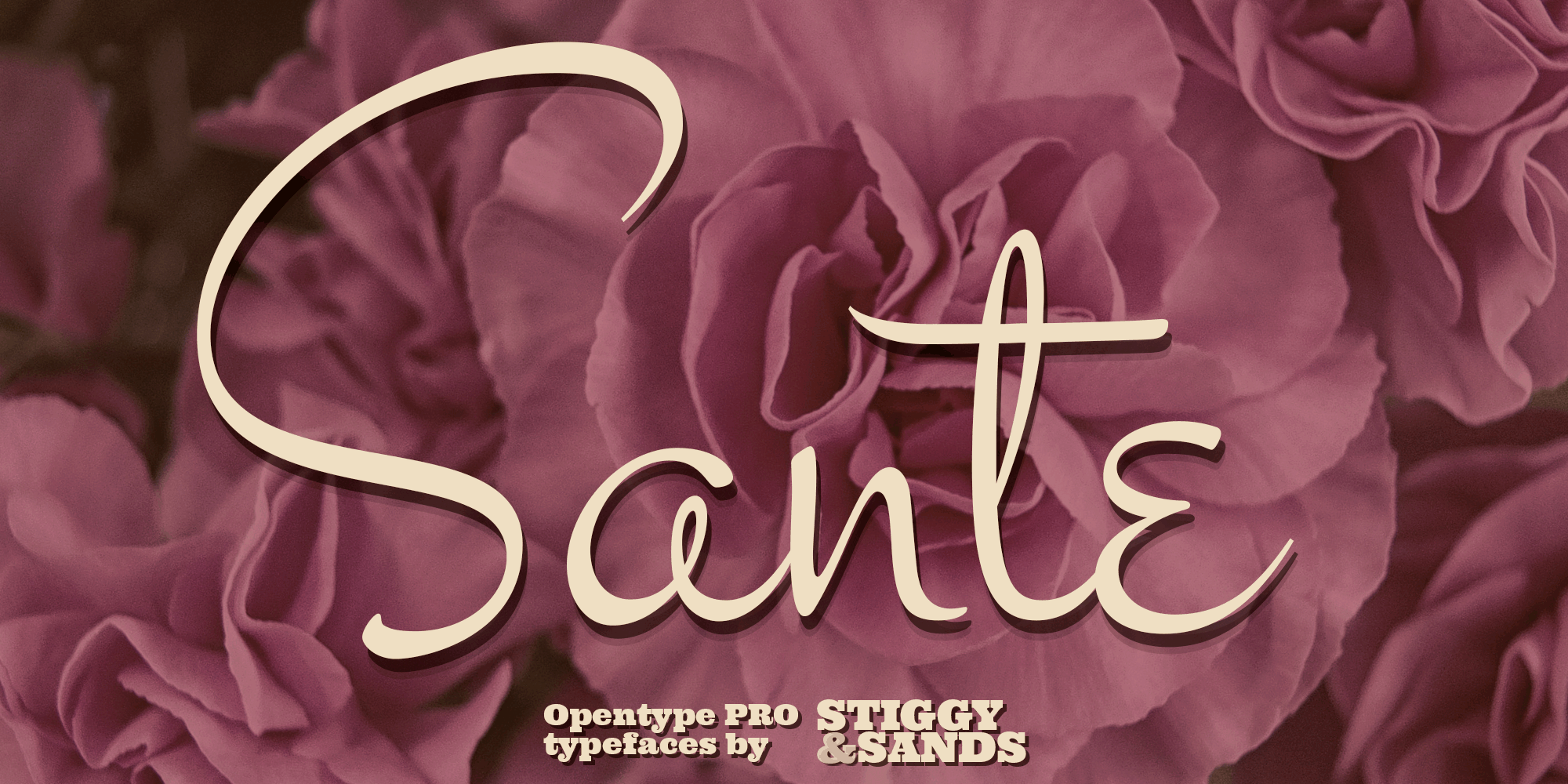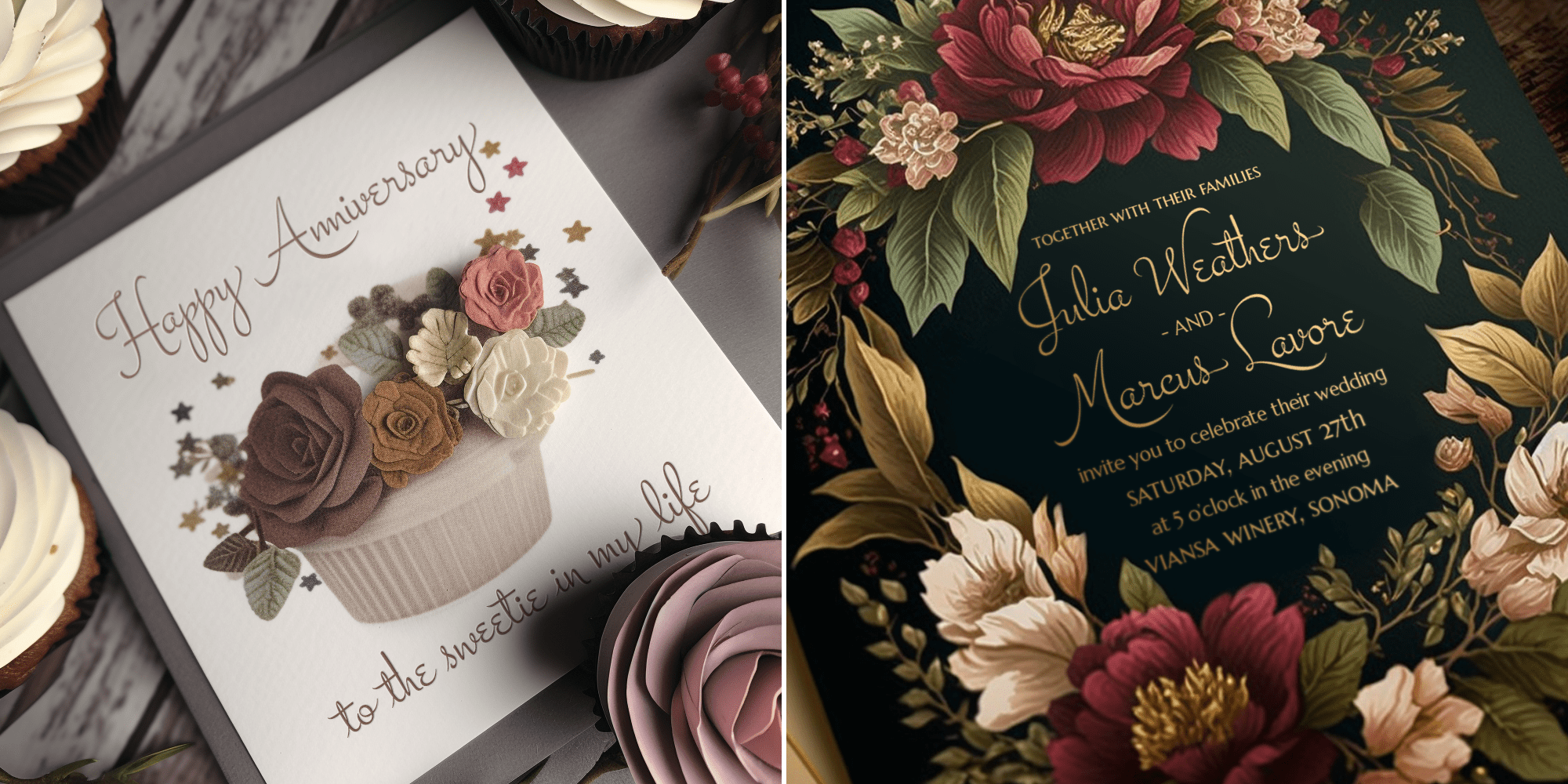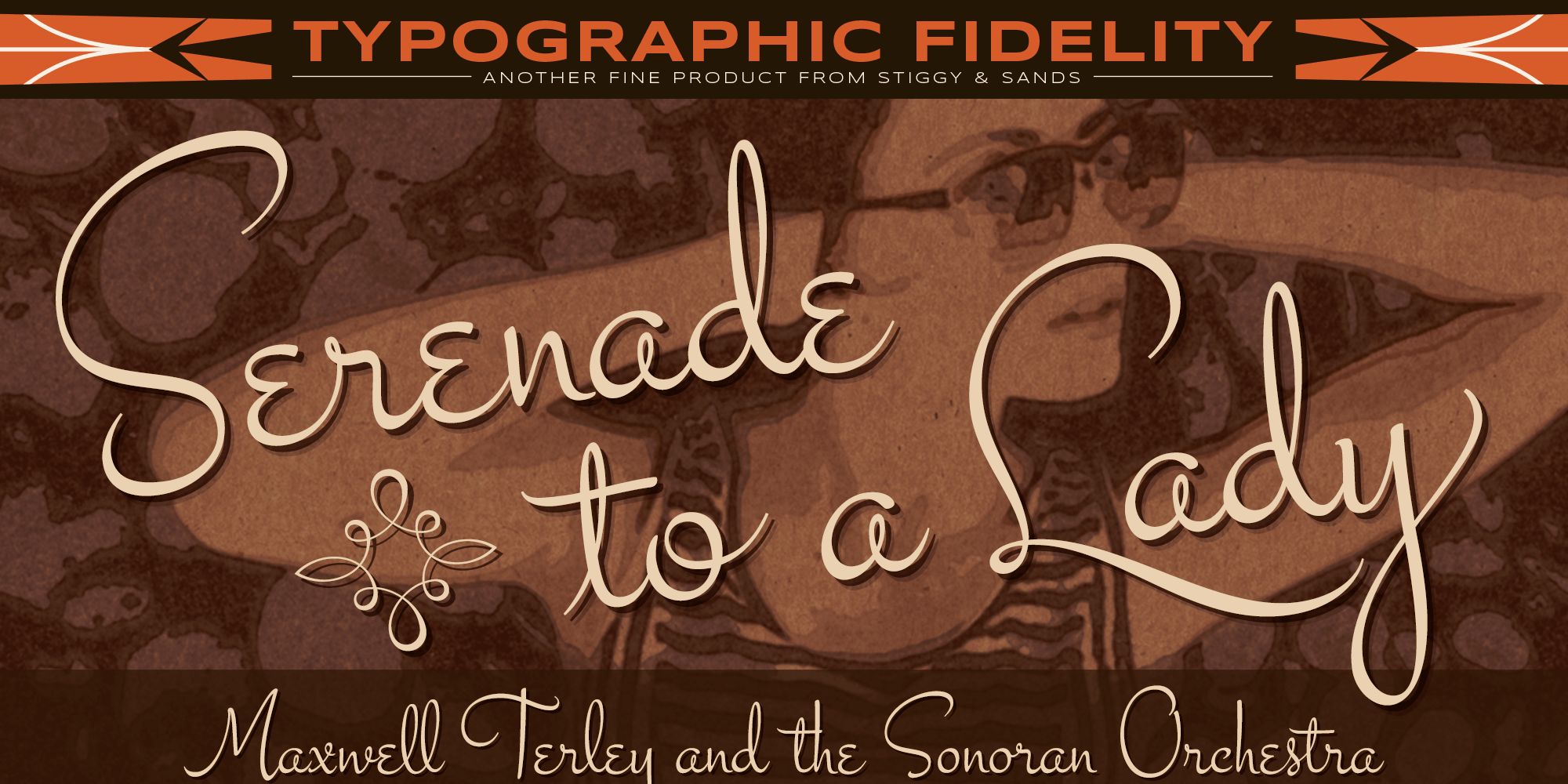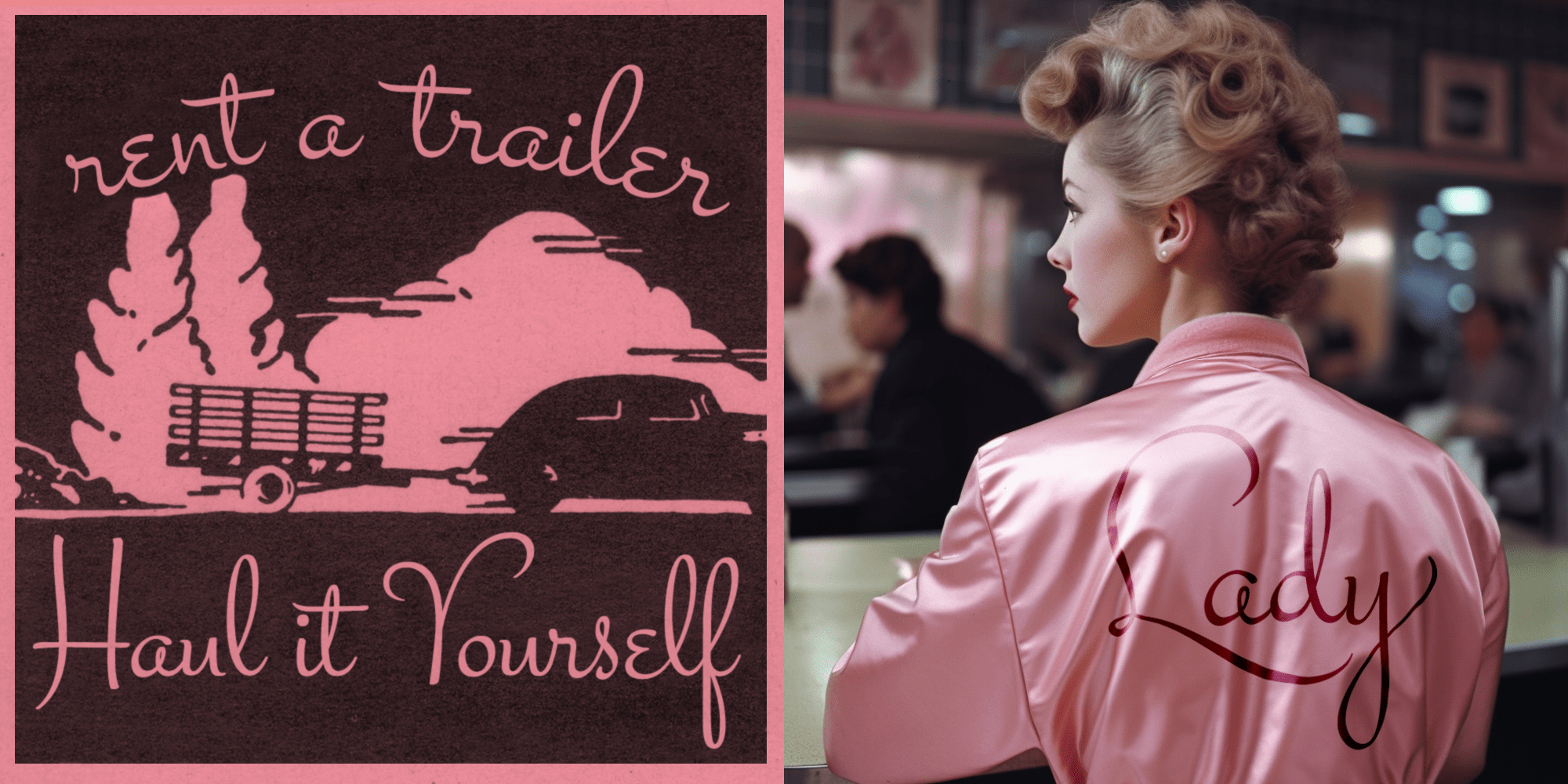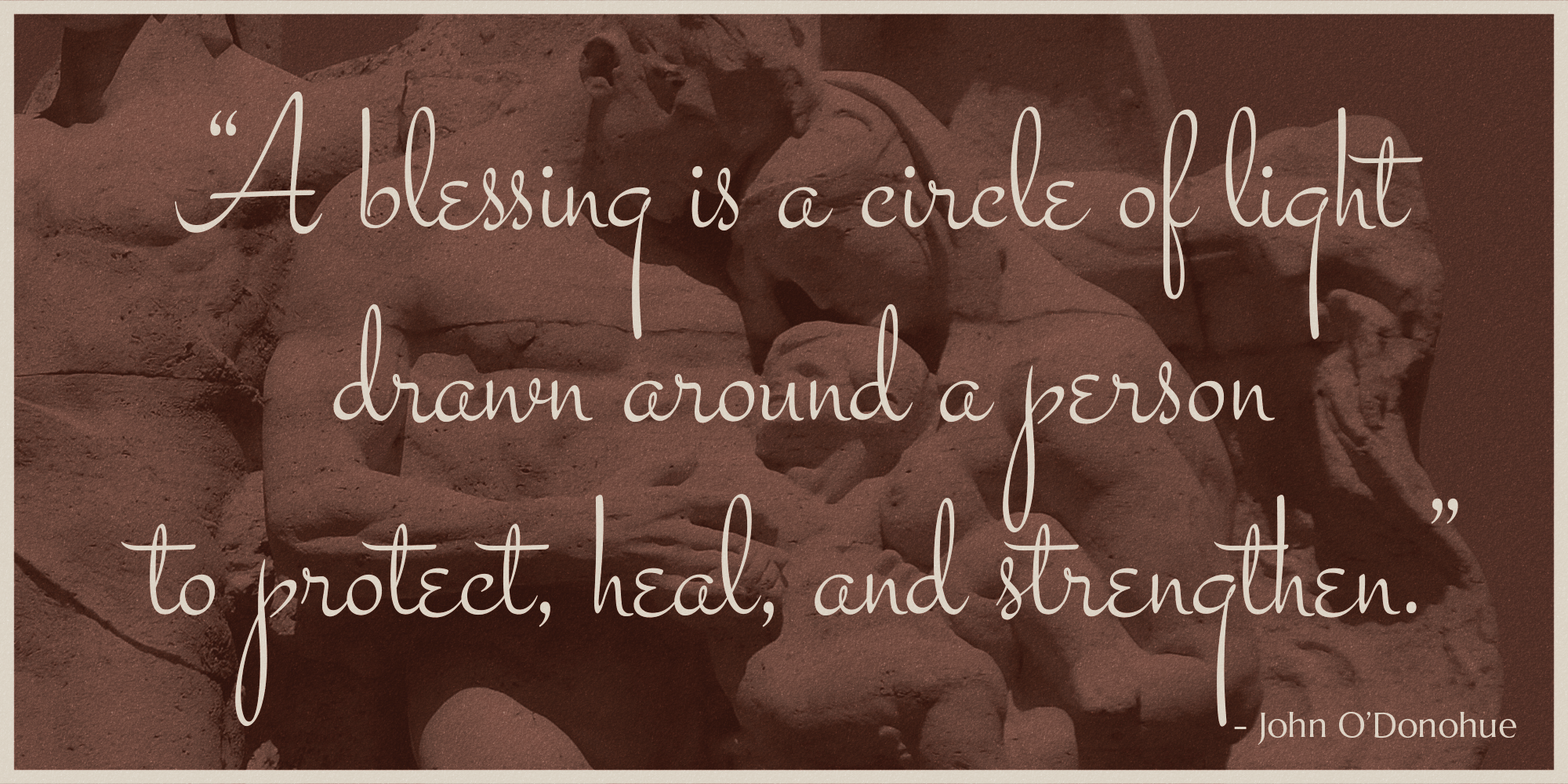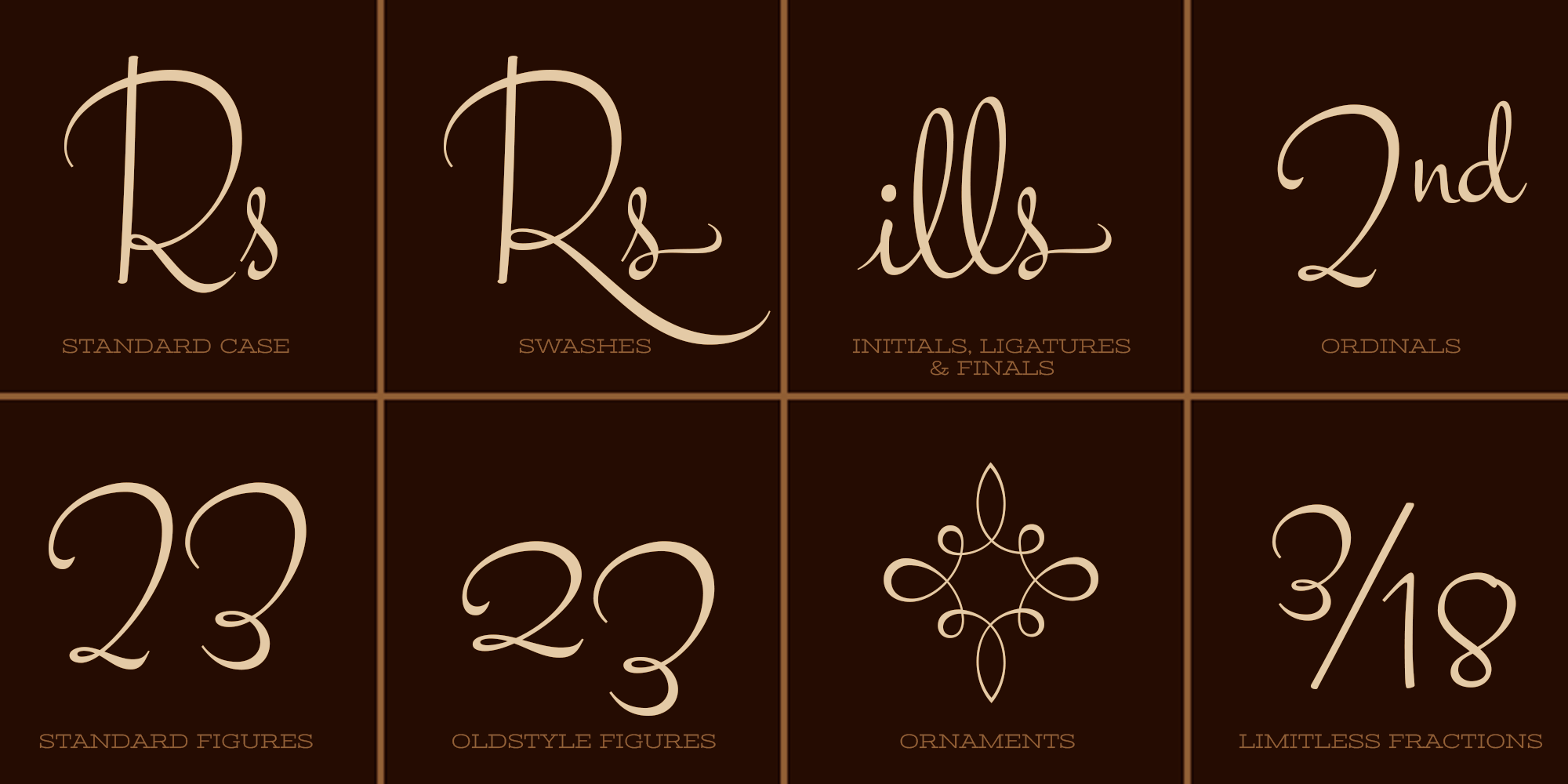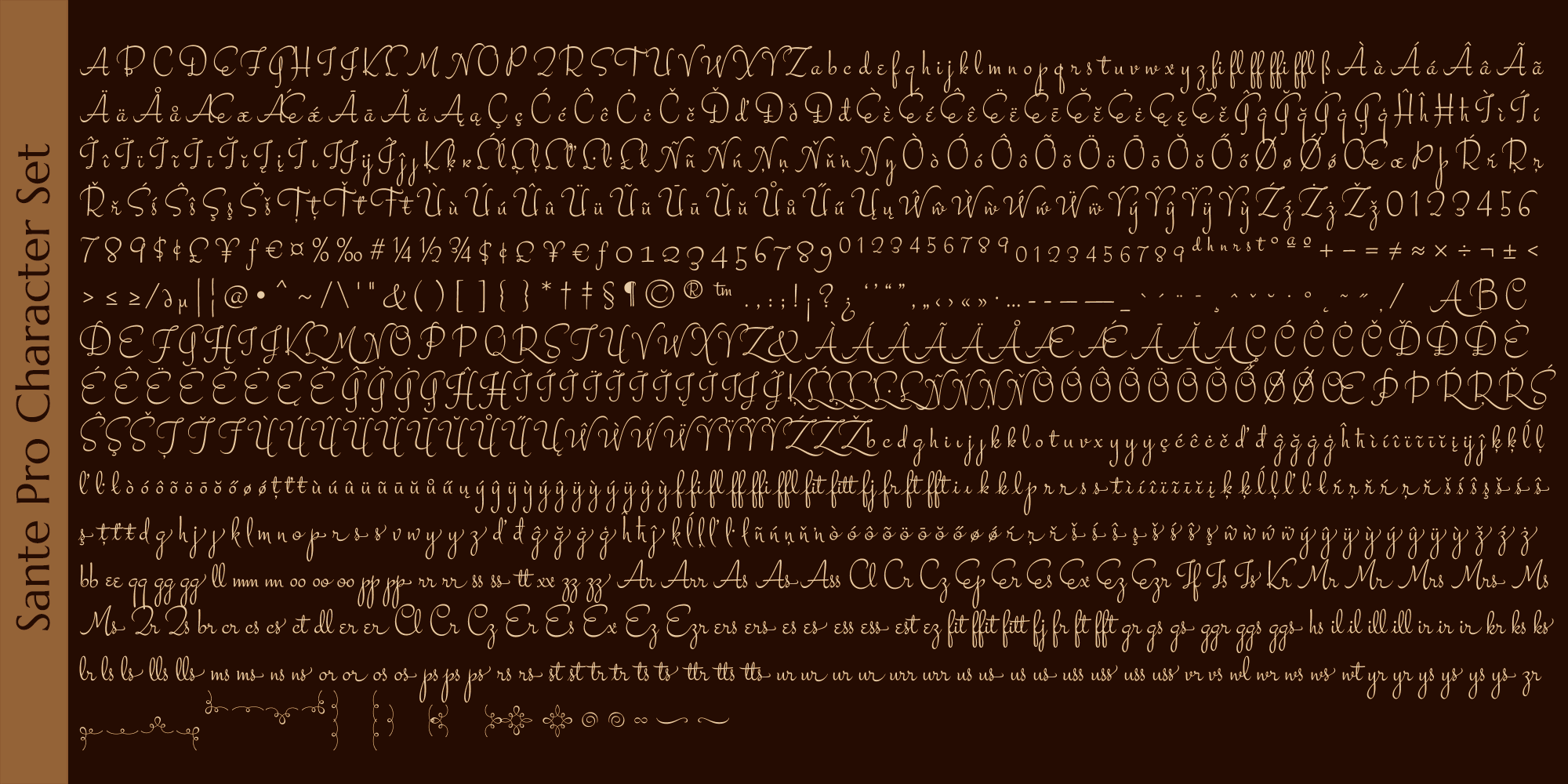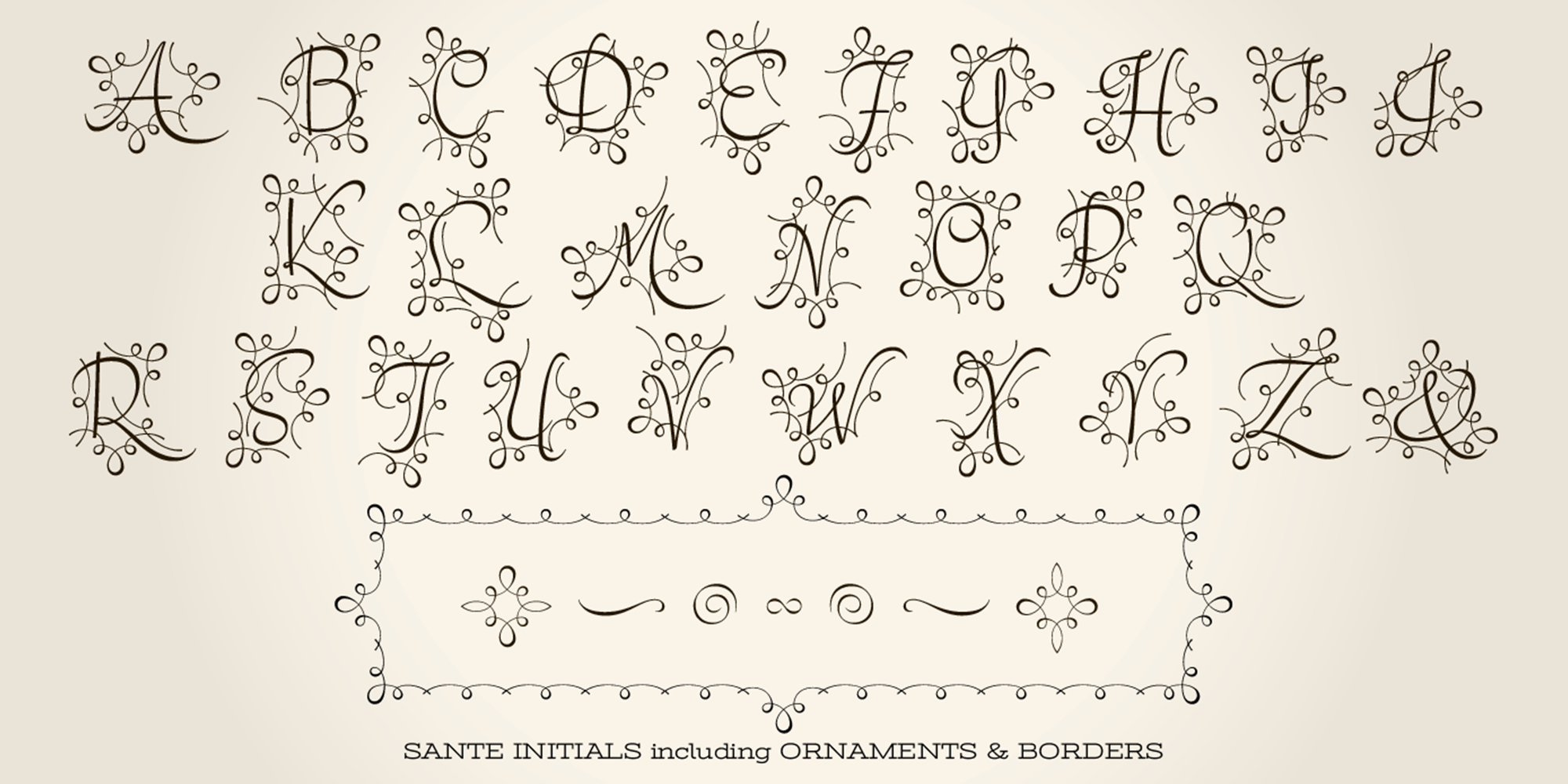
Sante Pro
Our Sante Pro is a script of vintage origins with modern flair. This script embodies holiday and special event celebrations in its styling while exuding a confidence and carefree attitude. It makes a bold statement in any design.
This script is loaded with extra features - truly giving Sante Pro lots to celebrate!
Opentype features include: - Swash Capitals - Initial and Final forms of Lowercase letters via Contextual Swash Alternates. - Full set of Inferiors and Superiors for limitless fractions. - Oldstyle figures. - Ordinals. - Borders & Flourishing Ornaments.
But there's still more! The Sante Initials font uses specially designed flourishes to follow the forms of Swash capitals to create a unique and fanciful look. See the PDF guidebook for Sante Initials for more information.